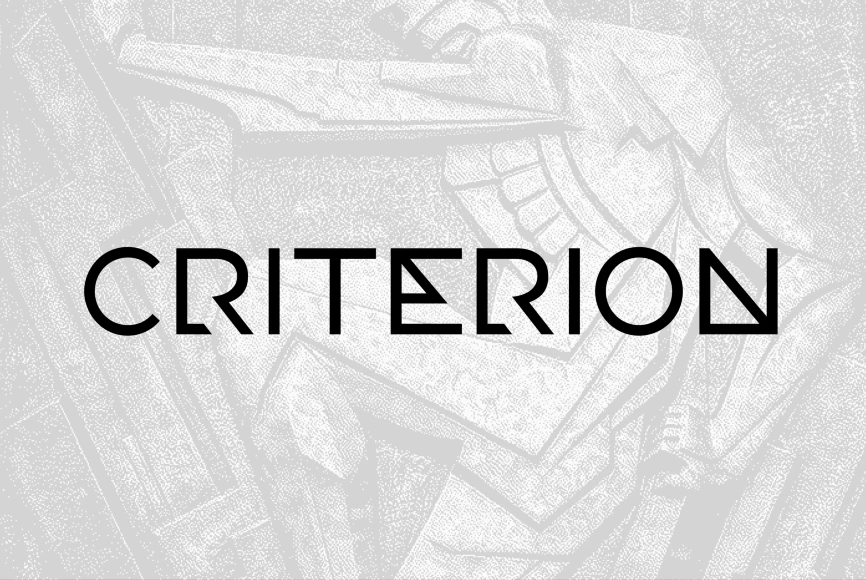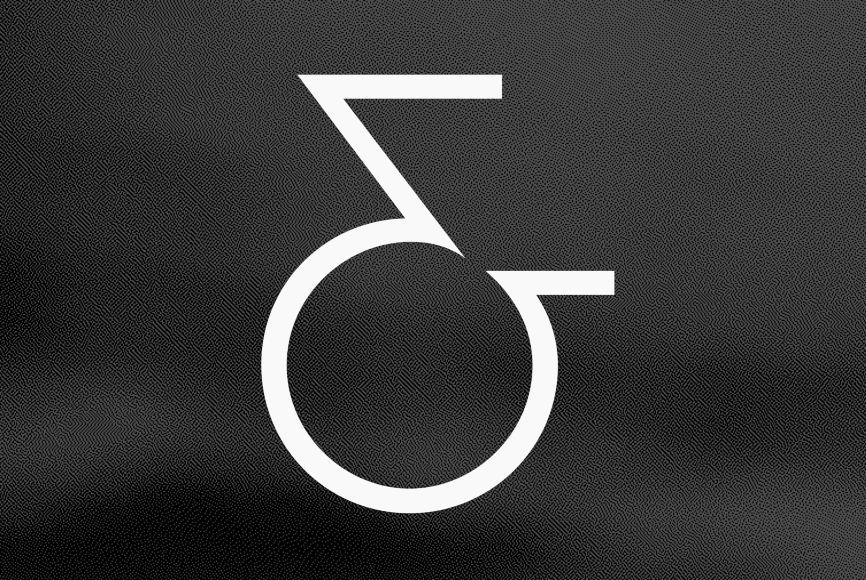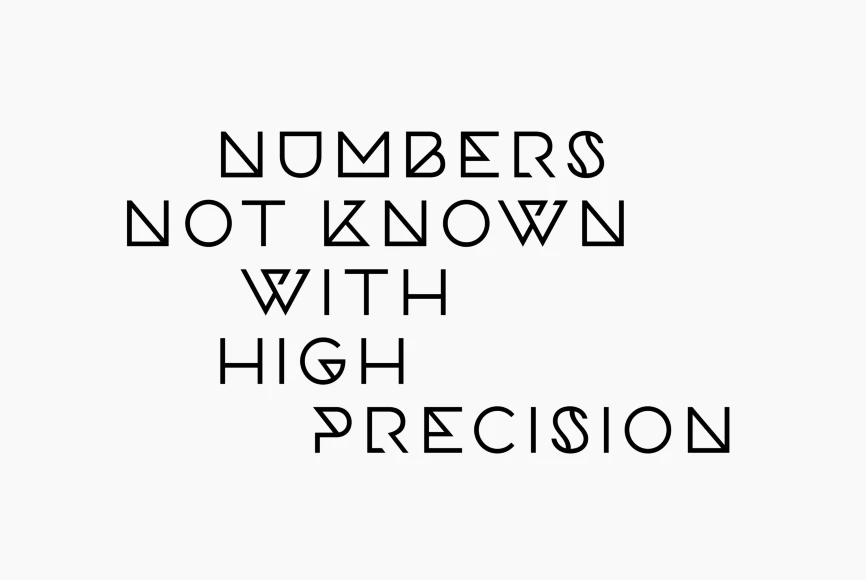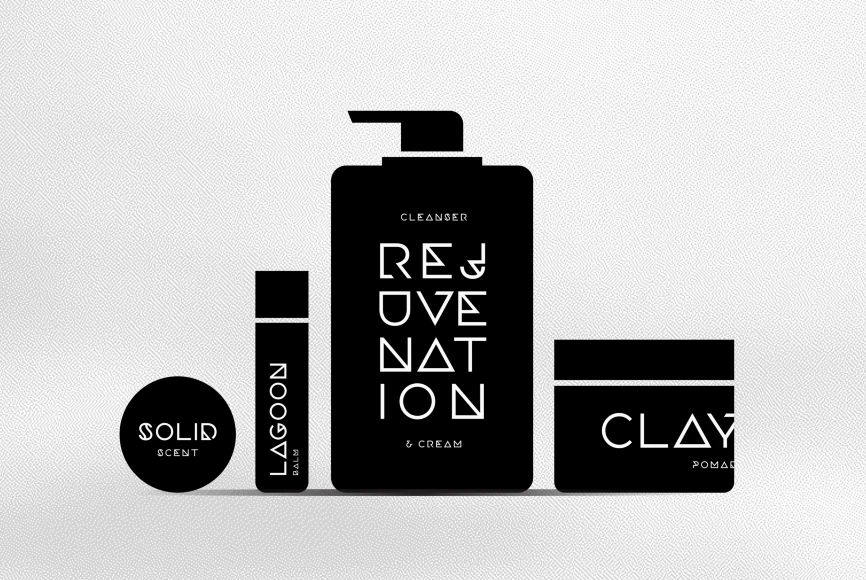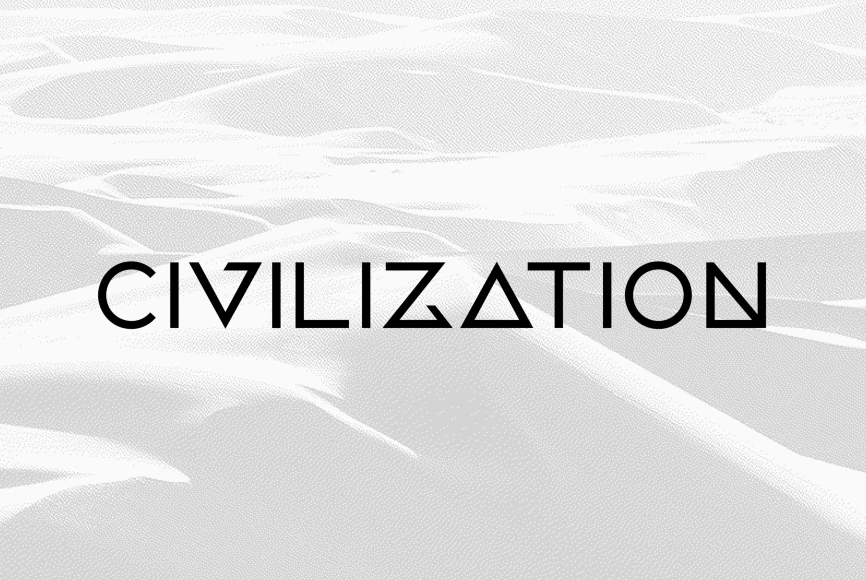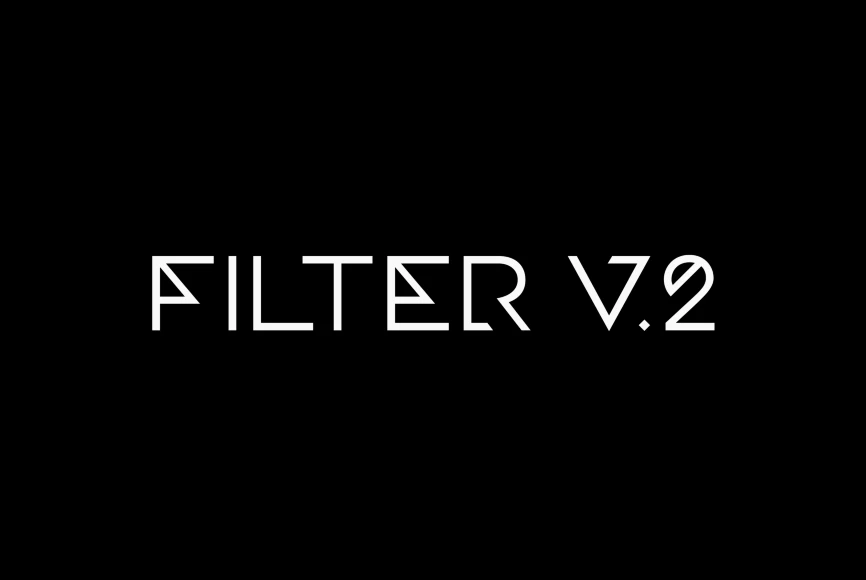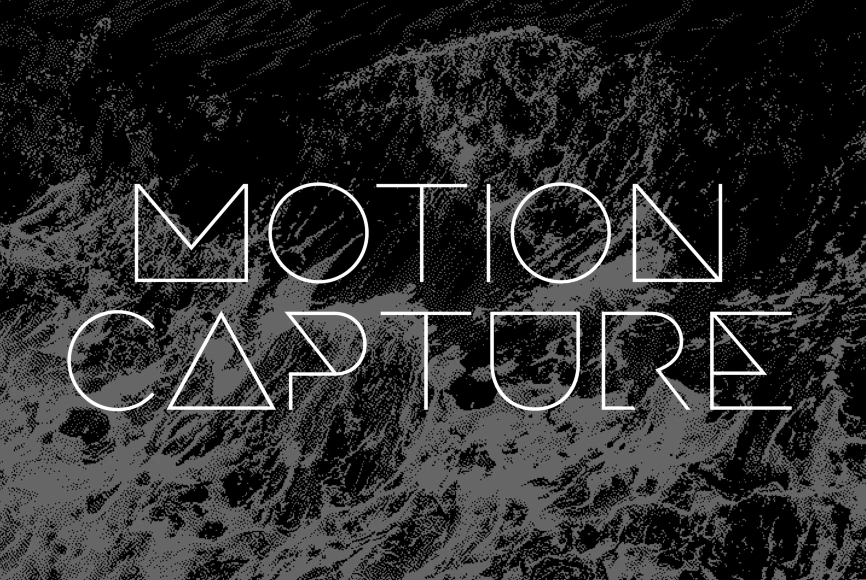
Filter
Fusing constructivism, fashion, and design, Filter is an experimental display typeface in five weights. Excellent for short bursts of stylized text, Filter features Latin and Cyrillic alphabets with nods to art deco, geometry, and science fiction.